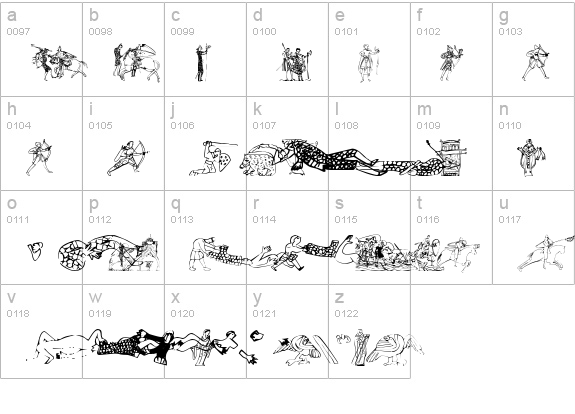
BasBayeux.02 Font Details
BasBayeux.02 is a beautifully crafted font that combines classic elegance with a touch of modernity. The intricate details and unique design elements make this font stand out from the rest, making it a perfect choice for various creative projects. The flowing lines and delicate curves of BasBayeux.02 exude sophistication and style, adding a touch of refinement to any design. What sets BasBayeux.02 apart is that it is available for free download at FontsMarket.com. This means that you can easily access this stunning font and use it in your projects without any cost. Whether you're designing a logo, creating a poster, or working on a website, BasBayeux.02 is sure to elevate your design and leave a lasting impression. With its versatility and timeless appeal, BasBayeux.02 is a must-have for designers looking to add a touch of elegance to their work. Download this font for free today and see the difference it can make in your creative endeavors.